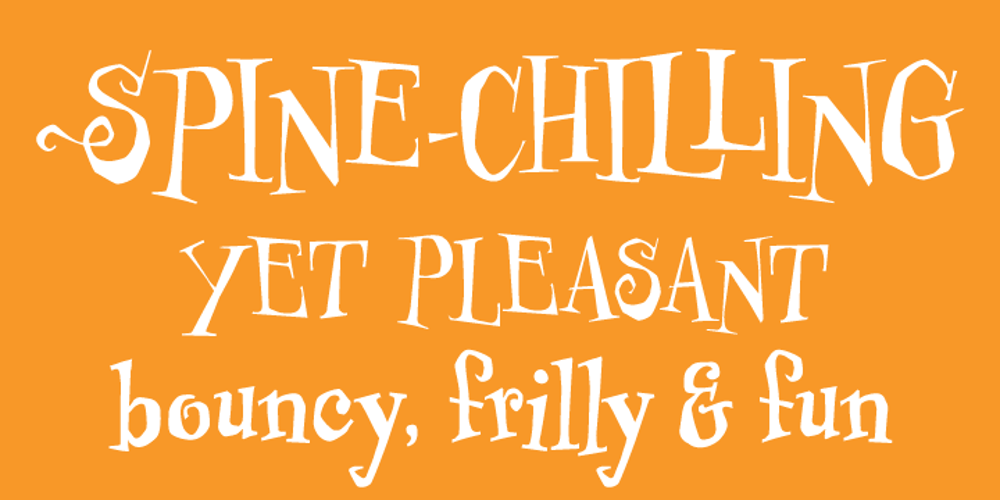
Professor Minty
Professor Minty font
Professor Minty Font Family was designed by Chank Diesel and published by Chank. Professor Minty contains 2 styles and family package options. Professor Minty is a cartoon-inspired kind of comic font with a lotta bounce and a whole buncha spooky fun. Both regular and bold are based on Chank’s first fonts, Mister Frisky and Uncle Stinky. The Bold version is brand new in 2011, never before available. But here both of those fonts are combined into one extra-savvy font that does all kinds of tricks. It has many extra special OpenType features, like Swash, Contextual Alternates and Small caps and more. There’s even a “decaf” feature (Stylistic Set #1) which tones it down a bit if the account people think it is just too exciting. Works good for Halloween, Christmas and Valentine’s Day, oddly enough. Who knew those three holidays had anything in common?